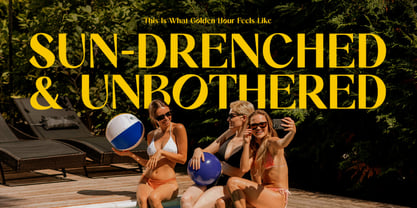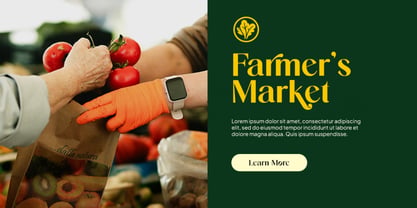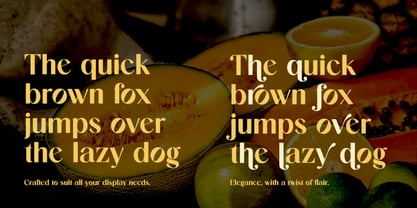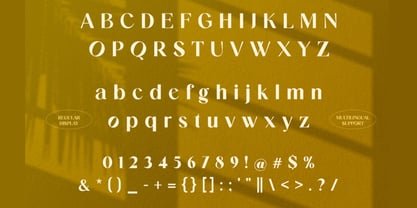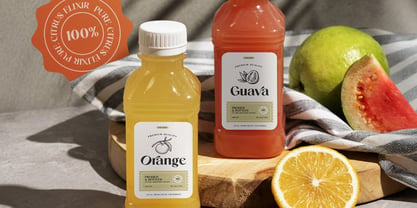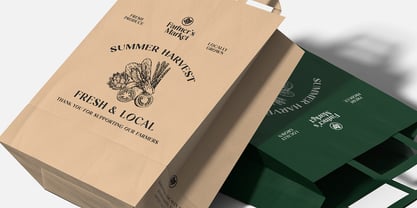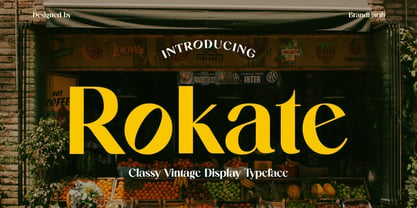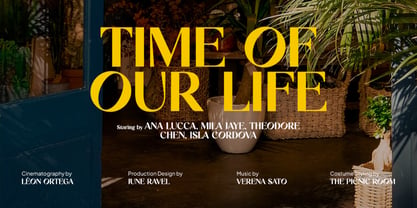
Rokate
by Brandearth
The Rokate Font Family was designed by Moch Rasjid Wiyono and published by Brandearth. Rokate contains 1 styles. More about this family
Rokate Classy Vintage Sans Serif Font is a classy vintage serif typeface designed to elevate branding with a natural and timeless touch. With its elegant letterforms and traditional charm, Rokate is ideal for organic product packaging, farmers market branding, upscale labels, and boutique logos. Suitable For organic branding, juice packaging, farmers market, product label, vintage logo, eco design, food brand, cafe signage, elegant tag, modern rustic style, boutique identity, handcrafted goods, restaurant menu, heritage brand, grocery design, artisanal product, market stall, sustainable branding, farm-to-table promo, classic packaging.
Designers: Moch Rasjid Wiyono
Foundry: Brandearth